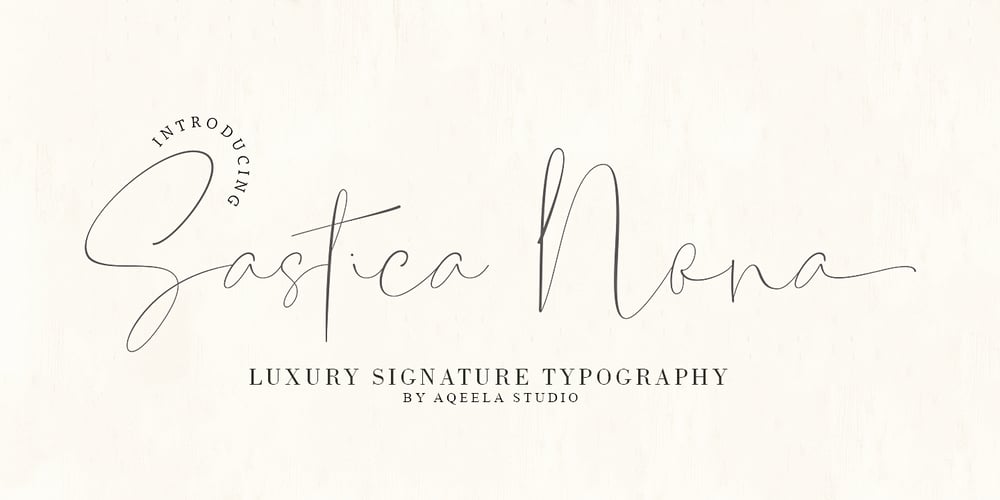
Sastica Nora Font Family was designed by Muhammad Nasir and published by Aqeela Studio. Sastica Nora contains 1 styles and family package options. Sastica Nora is a smooth and elegant handwritten font. Its distinctive, rounded font makes this font a masterpiece. Fall in love with its incredibly versatile style and use it to create spectacular designs!This font is PUA encoded which means you can access all glyphs and swashes with ease!